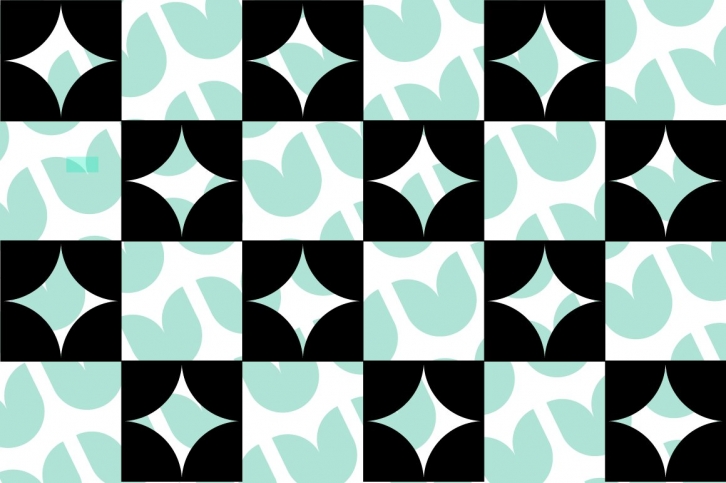
FormPattern is a versatile set of shapes. Many of the forms can flow together to make lines, borders, and patterns. Explore letter spacing to connect the forms into a continuous pattern or to space them apart to make borders. Explore leading to create large areas of pattern. Web designers can use FormPattern to make unique horizontal rules.